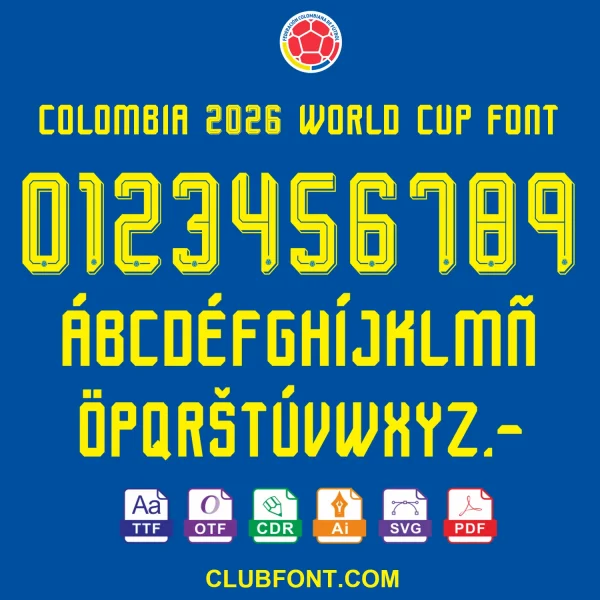
Colombia 2026 World Cup Away Kit Font – TTF, OTF & Vector Files
Are you ready to bring the electrifying spirit of the Los Cafeteros to your DIY crafts? Whether you are customizing a replica jersey for the big match or creating fan banners, our Colombia 2026 World Cup Away Font digital kit gives you the authentic, professional look of the pros right from your desktop.
• Authentic 2026 Away Kit Typography: Meticulously crafted to match the official Colombia away jersey style.